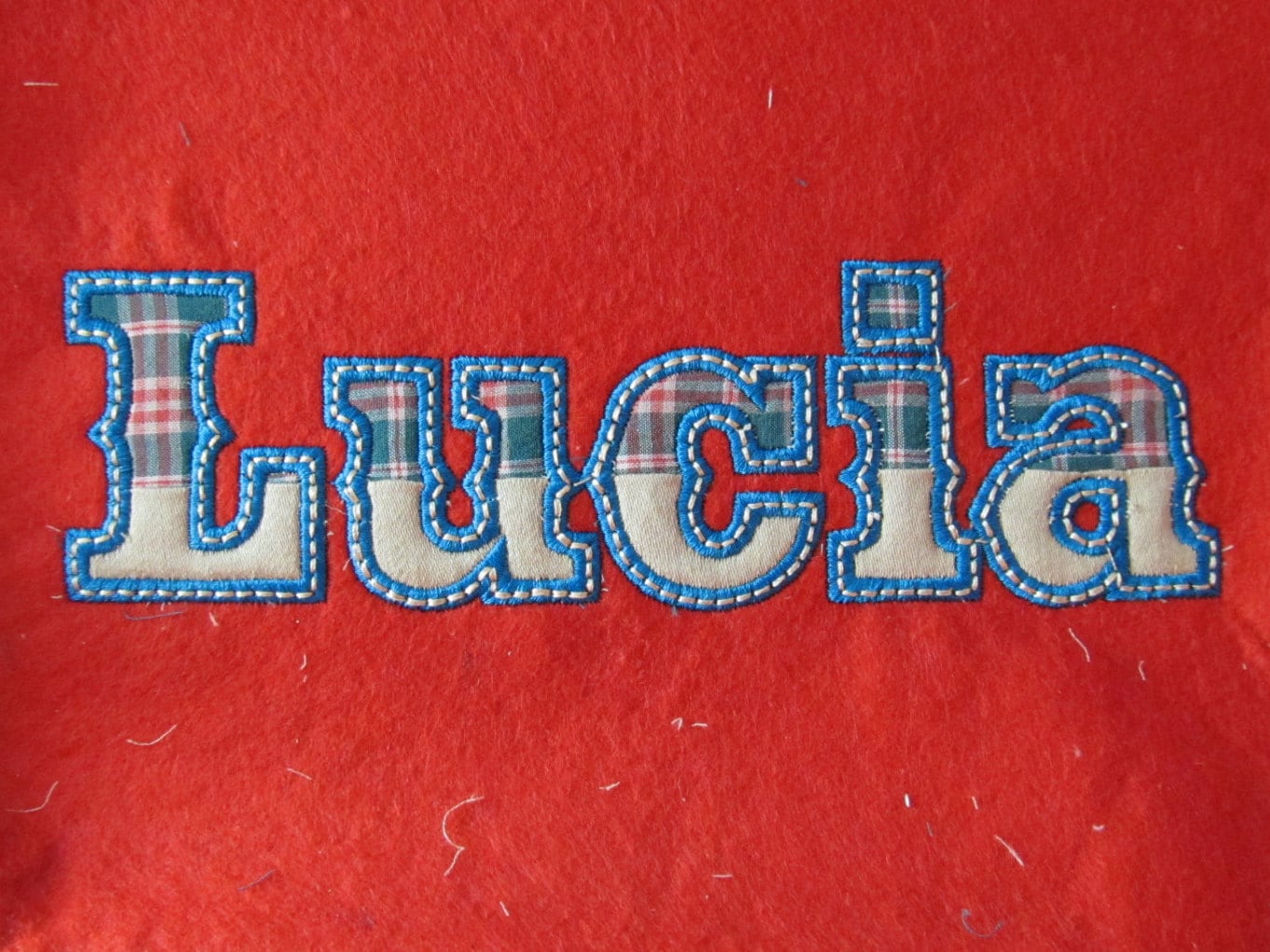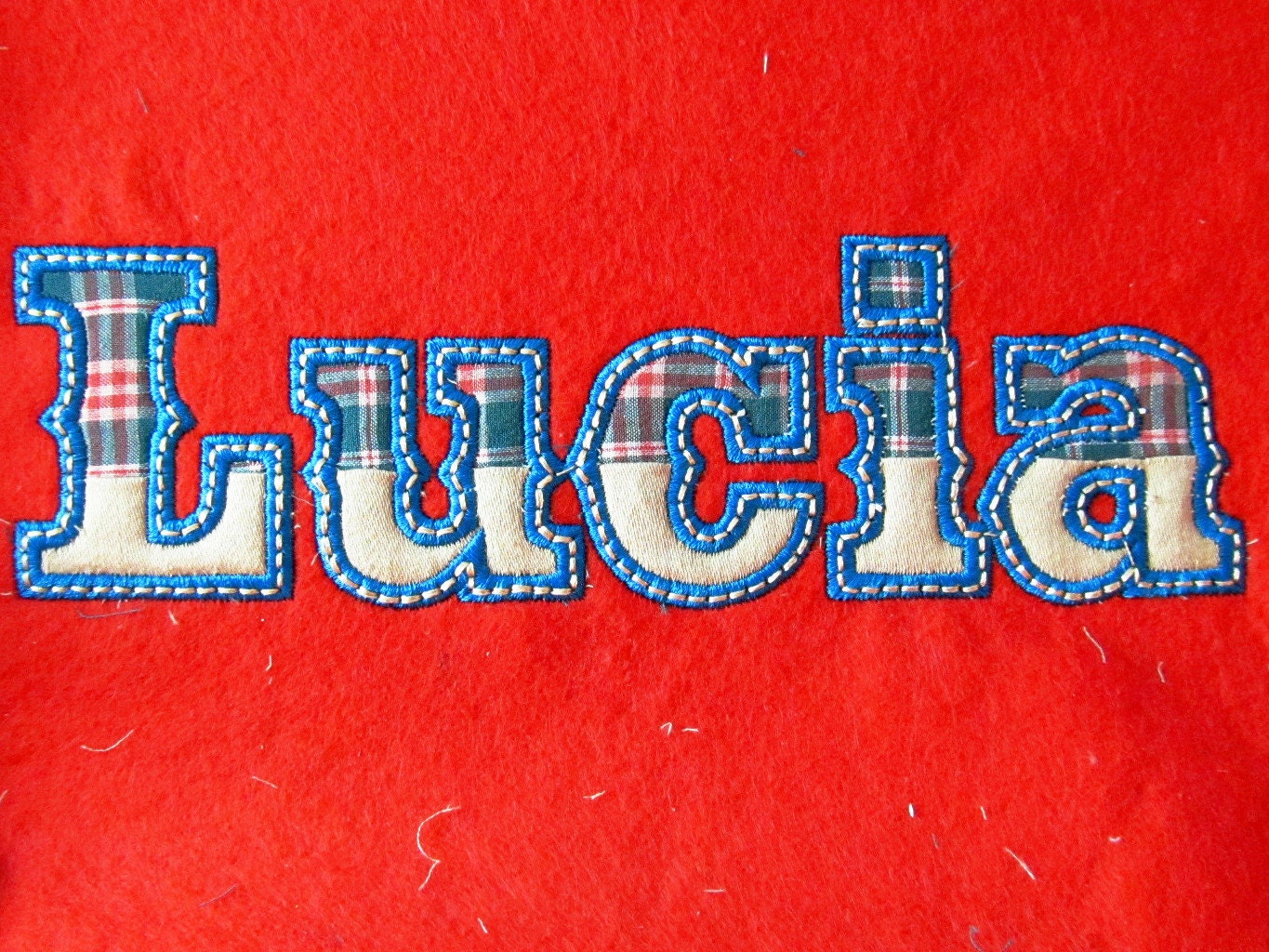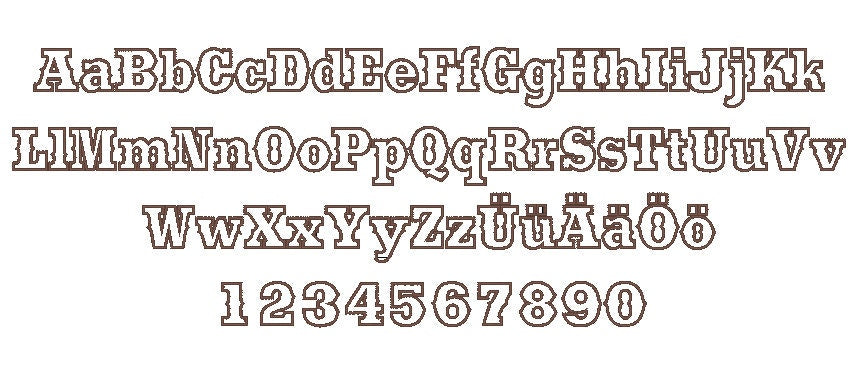
Cowboy Font Applique
Included: Uppercase A-Z, Lowercase a-z, Numbers 0-9, Punctuation
A western cowboy applique font for kids' names and monograms. Fun for rodeo shirts, bags, pillows and baby gifts.
Uppercase and lowercase letters, numbers 0 to 9 and punctuation, stitched as two-color applique, in two sizes: 2 and 3.1 inches.
• Cowboy applique font
• Uppercase, lowercase, numbers 0 to 9, punctuation
• 2 sizes: 2 and 3.1 in